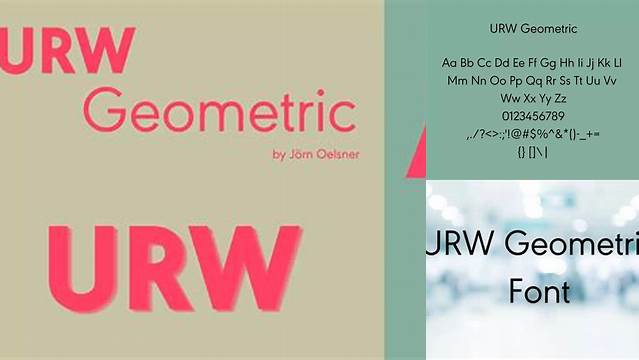
Hey guys! Looking for a clean and modern font? You've probably stumbled upon the URW Geometric font family. It's a super popular choice for everything from logos to websites, and for good reason. Its clean lines and geometric shapes give it a contemporary and professional feel. But where do you even start with finding a free download and making sure you're using it right? Don't worry, we've got you covered. This guide will walk you through everything you need to know about the URW Geometric font family, including where to find it, how to use it, and even some awesome alternatives. So, let's dive in!
Understanding the URW Geometric Font Family
Before we jump into the free download part, let's get a good grasp of what the URW Geometric font family actually is. It's more than just one font; it's a whole family of fonts, each with its own unique weight and style. This gives you a ton of flexibility in your design projects. Understanding the nuances of each member of the family will help you make the best choices for your specific needs. We'll explore the different weights and styles available, how they can impact your designs, and why this versatility is a major selling point of the URW Geometric font family. You see, choosing the right font is like choosing the right outfit for an occasion. You wouldn't wear a tuxedo to the beach, right? Similarly, you need the right font to convey the right message and feeling. So, let's unpack this further, shall we?
What is Geometric Sans-Serif?
Okay, let's break down the term βgeometric sans-serif.β Geometric fonts, as the name suggests, are built on basic geometric shapes β think circles, squares, and triangles. These shapes give the font a clean, modern, and often minimalist appearance. The βsans-serifβ part means the font doesn't have those little decorative strokes (serifs) at the end of the letters, like Times New Roman does. This makes geometric sans-serif fonts, like the URW Geometric font family, super legible and versatile, especially for digital use. They look great on screens and print materials alike. The simplicity of these fonts often conveys a sense of clarity and efficiency, making them perfect for branding, websites, and anything where you want to project a modern, straightforward image. Now, why does this matter when we talk about a free download? Well, knowing what you're looking for helps you choose the best option and understand the font's intended use.
Key Characteristics of URW Geometric
So, what specifically makes the URW Geometric font family stand out? It's all about that balance between clean geometry and a touch of warmth. While many geometric fonts can feel cold or sterile, URW Geometric manages to retain a human element. Think of it as a friendly robot β efficient, but not intimidating! This is achieved through subtle variations in stroke width and letterform design. The consistent letter heights and widths contribute to a harmonious visual rhythm, making it easy to read in large blocks of text or as a striking headline. And this is crucial, whether you're designing a website, a brochure, or even a simple business card. When you're considering a free download, make sure the version you're getting retains these key characteristics. A poorly made or incomplete version can lose the essence of what makes URW Geometric so effective. We need to ensure the font you download retains its visual clarity and professional appearance for the best impact.
Why Choose URW Geometric for Your Project?
Why should you even bother looking for a free download of the URW Geometric font family? Simple: it's incredibly versatile. Need a font for your tech startup's website? URW Geometric works. Designing a sleek brochure for a luxury brand? URW Geometric works. Creating a clear and easy-to-read user interface for an app? You guessed it: URW Geometric works! Its clean and modern aesthetic makes it a chameleon, adapting to a wide range of design styles. Plus, because it's a well-designed geometric sans-serif, it ensures readability across different platforms and sizes. This is a huge advantage, especially in today's multi-device world. You want your message to look good whether it's on a phone screen or a billboard, and URW Geometric helps you achieve that. It projects an image of competence and reliability, which is crucial for building trust with your audience.
Free Alternatives to URW Geometric
Using URW Geometric in Your Designs
Alright, you've found your free download (or a great free alternative), now what? It's time to put the URW Geometric font family to work! But just having the font on your computer isn't enough; you need to know how to use it effectively in your designs. This is where the magic happens β where you transform a simple typeface into a powerful communication tool. We'll explore some key principles of font pairing, visual hierarchy, and how to choose the right weight and style for different purposes. Think of it like learning to play an instrument β you might have the instrument, but you need to learn the techniques to make beautiful music. So, let's get started on mastering the art of typography!
So, there you have it β a comprehensive guide to the URW Geometric font family and its free download options! We've explored everything from the font's key characteristics to its applications in branding and design, as well as legal considerations and the future of geometric typefaces. While finding a free download of the exact URW Geometric font family can be a challenge, we've highlighted plenty of fantastic free alternatives and resources to help you achieve a similar look and feel. Remember, choosing the right font is a crucial part of the design process, so take your time, experiment, and find what works best for your project. And always be mindful of font licensing to ensure you're using fonts legally and ethically. Happy designing, guys! Think of this knowledge as a new superpower in your design arsenal β use it wisely and create something amazing!URW Geometric font family is really a good choice for your awesome design.